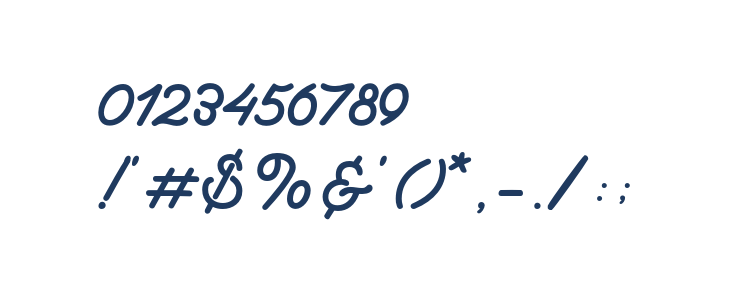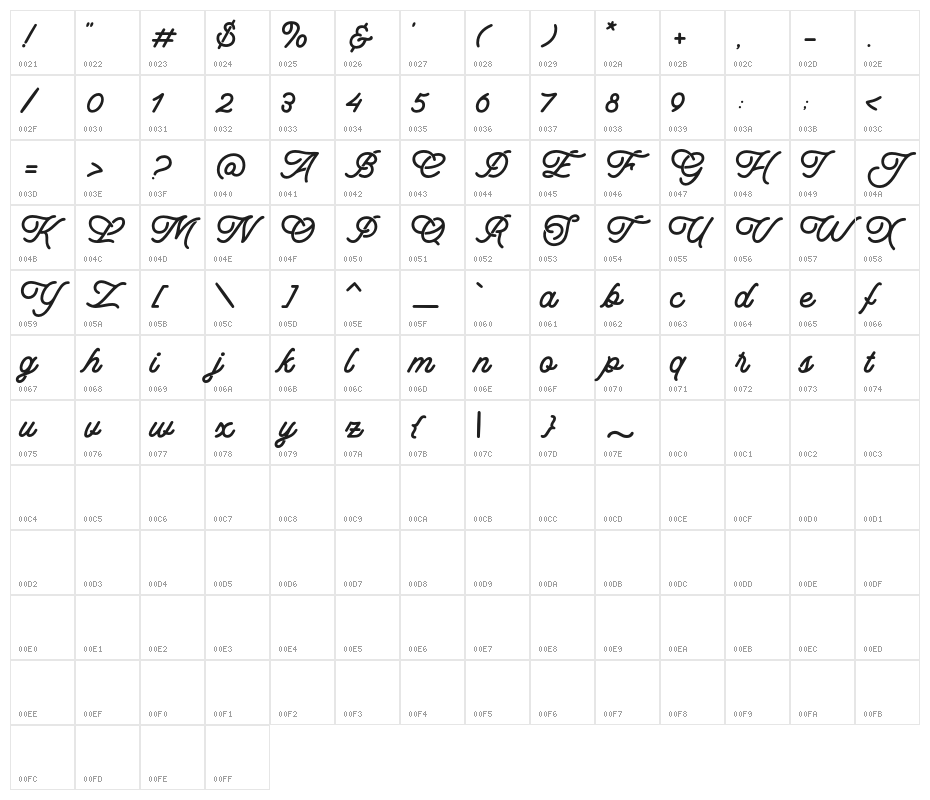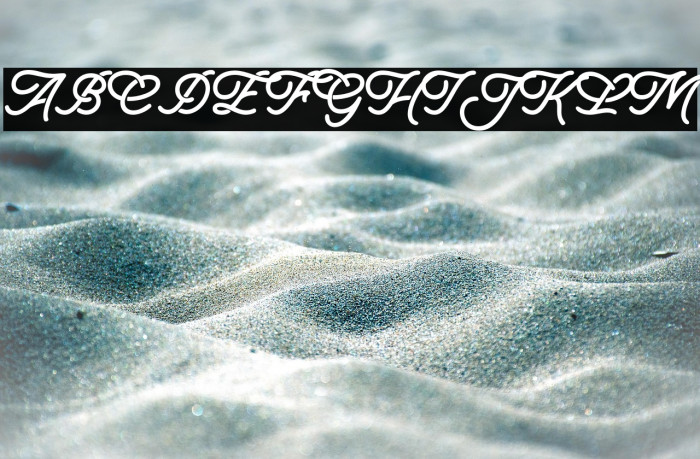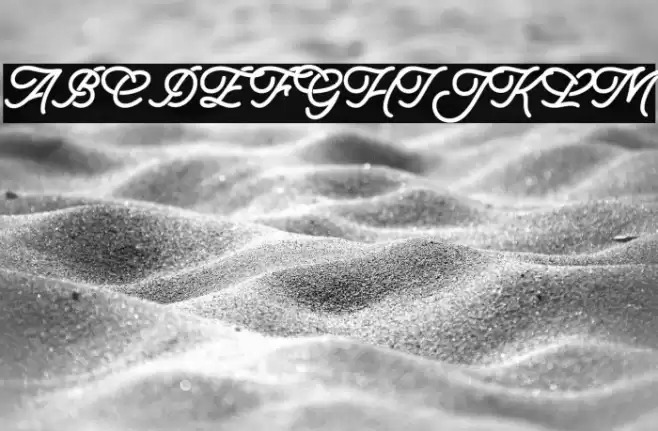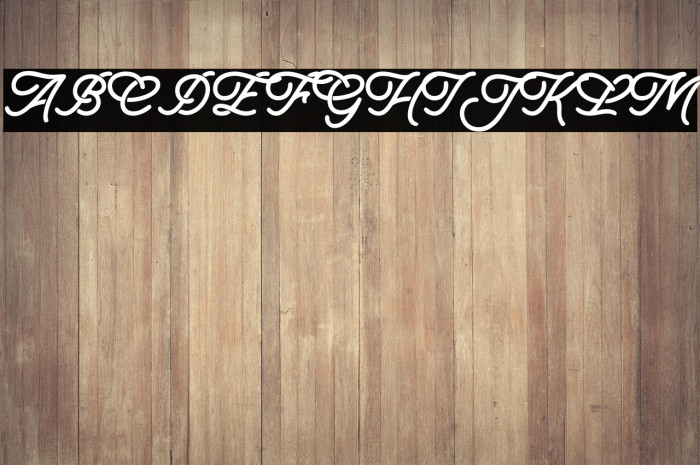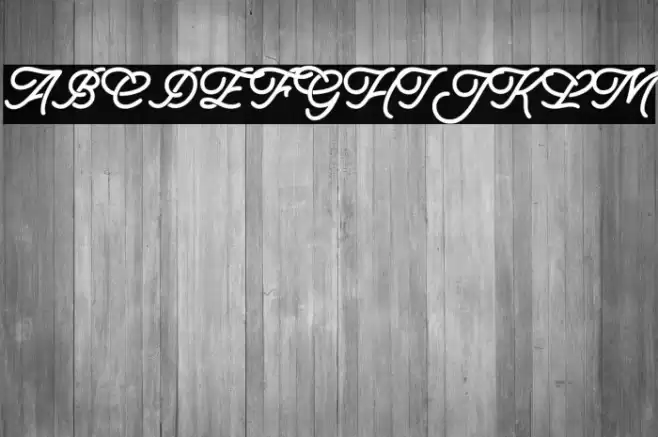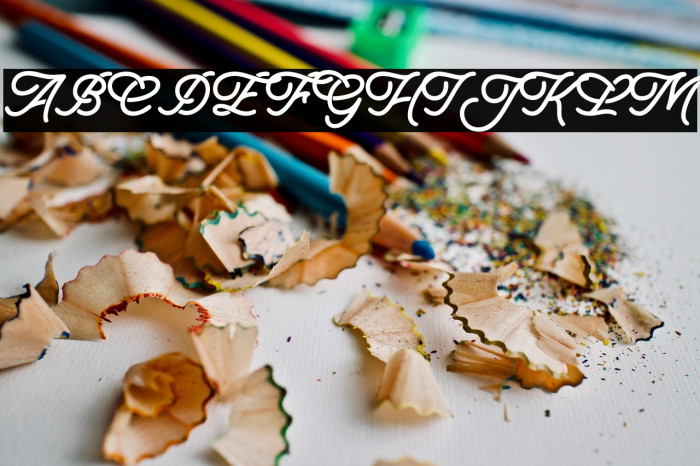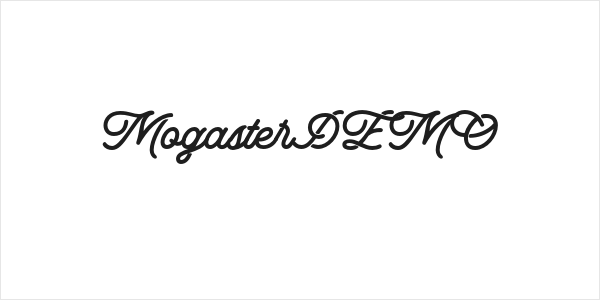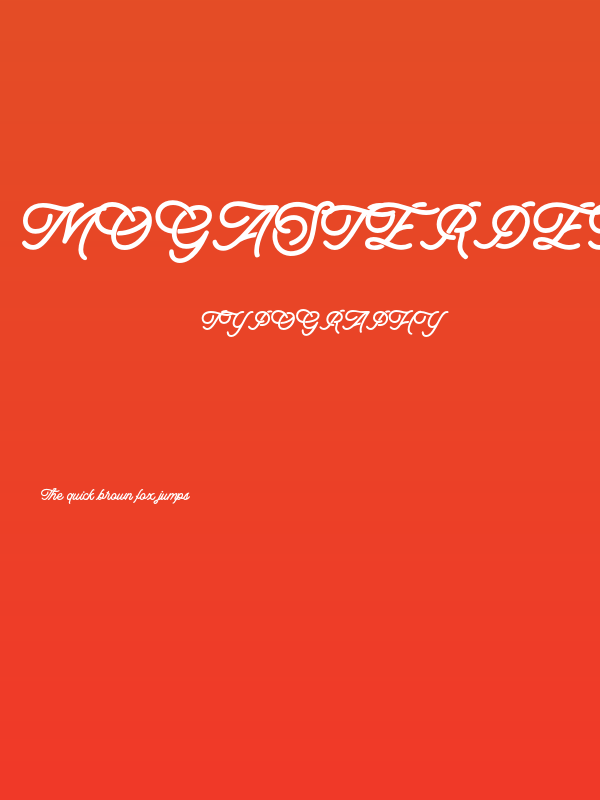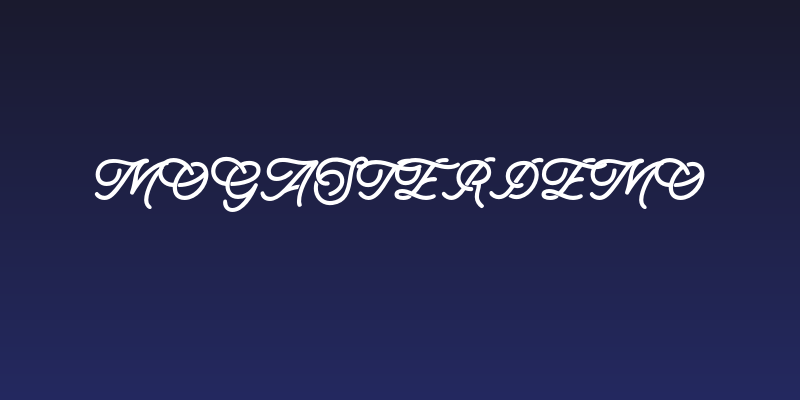
MogasterDEMO Font
MogasterDEMO Description
This font features a flowing, cursive style that exudes elegance and sophistication. The uppercase letters are intricately designed with smooth, sweeping curves, while the lowercase letters maintain a consistent, connected script that enhances readability. The numerals are bold and clear, complementing the overall aesthetic. Special characters are thoughtfully integrated, maintaining the font's cohesive look. This font is ideal for projects that require a touch of class and refinement, such as wedding invitations, luxury branding, or high-end product packaging.
| Proposed Projects | Wedding invitations, luxury branding, high-end product packaging. |